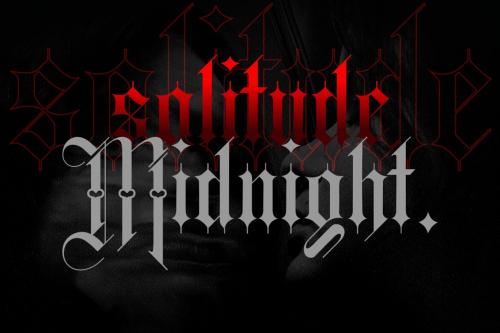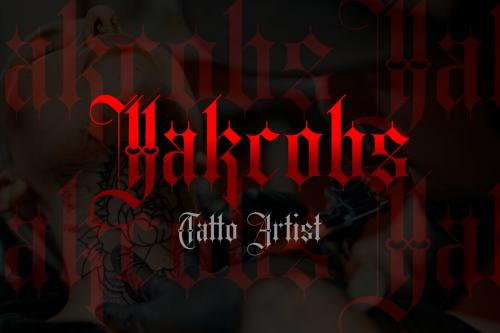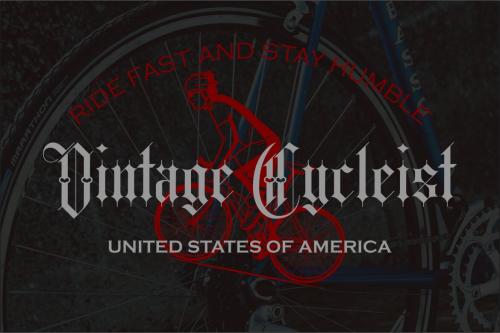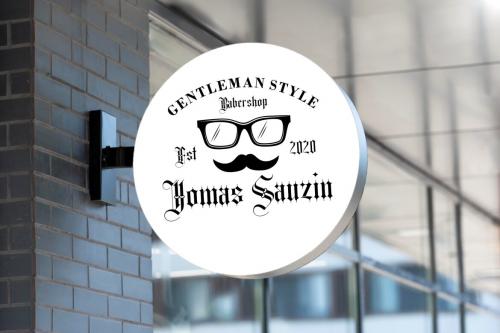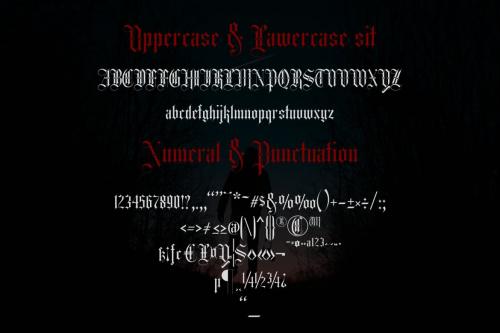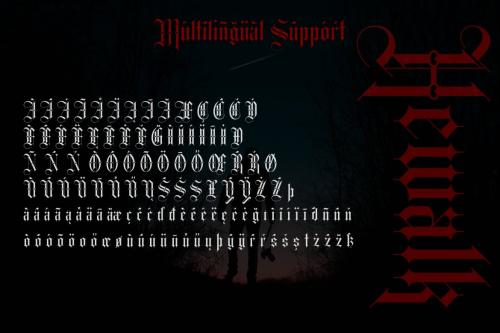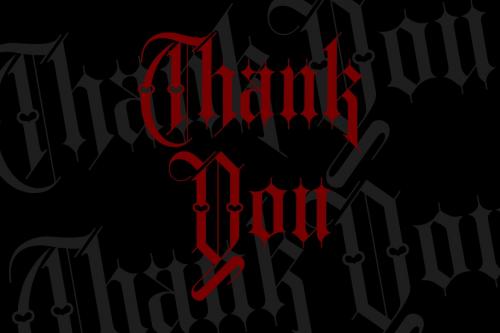
Hewalk is a font inspired by the Blackletter typeface, made with a modern impression but still looks strong and unique. In addition, Young Best font is also supported with multilingual characters that can be used in several international languages.
Hewalk font is very suitable for use in making music album cover designs, tattoo logos, wishkey labels, packaging pomades and so on which are made with dark and strong concepts.